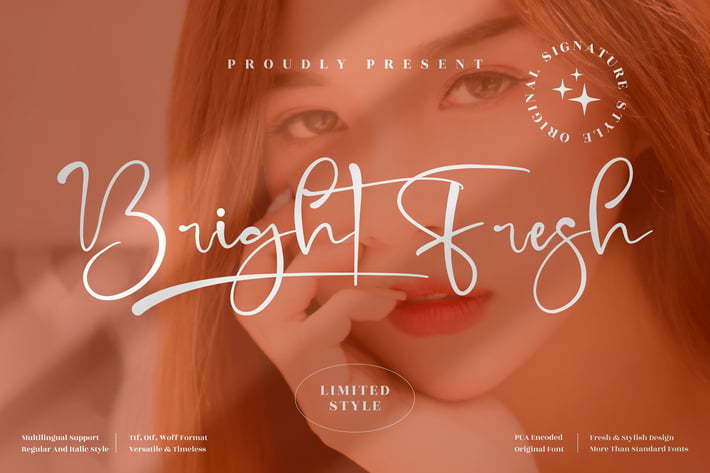
Bright Fresh Signature Font
Bright Fresh is a stylish signature font with a modern, fresh aesthetic, perfect for creating unique and eye-catching branding designs. With smooth curves and sophisticated flourishes, it’s ideal for personal projects, high-end logos, and signature-style branding.
Clean, elegant script with refined, smooth curves
Features swashes and stylistic alternates for customization
Modern and chic design for trendy visuals